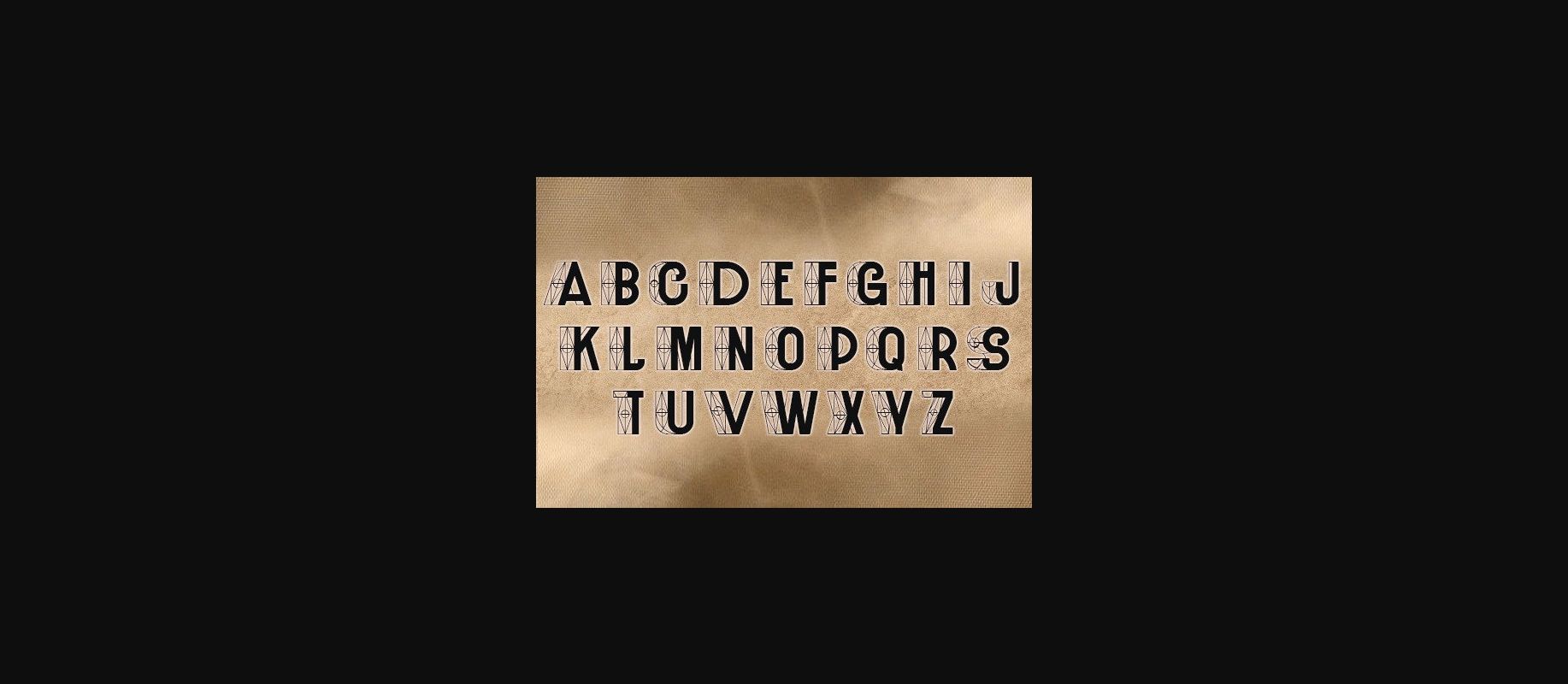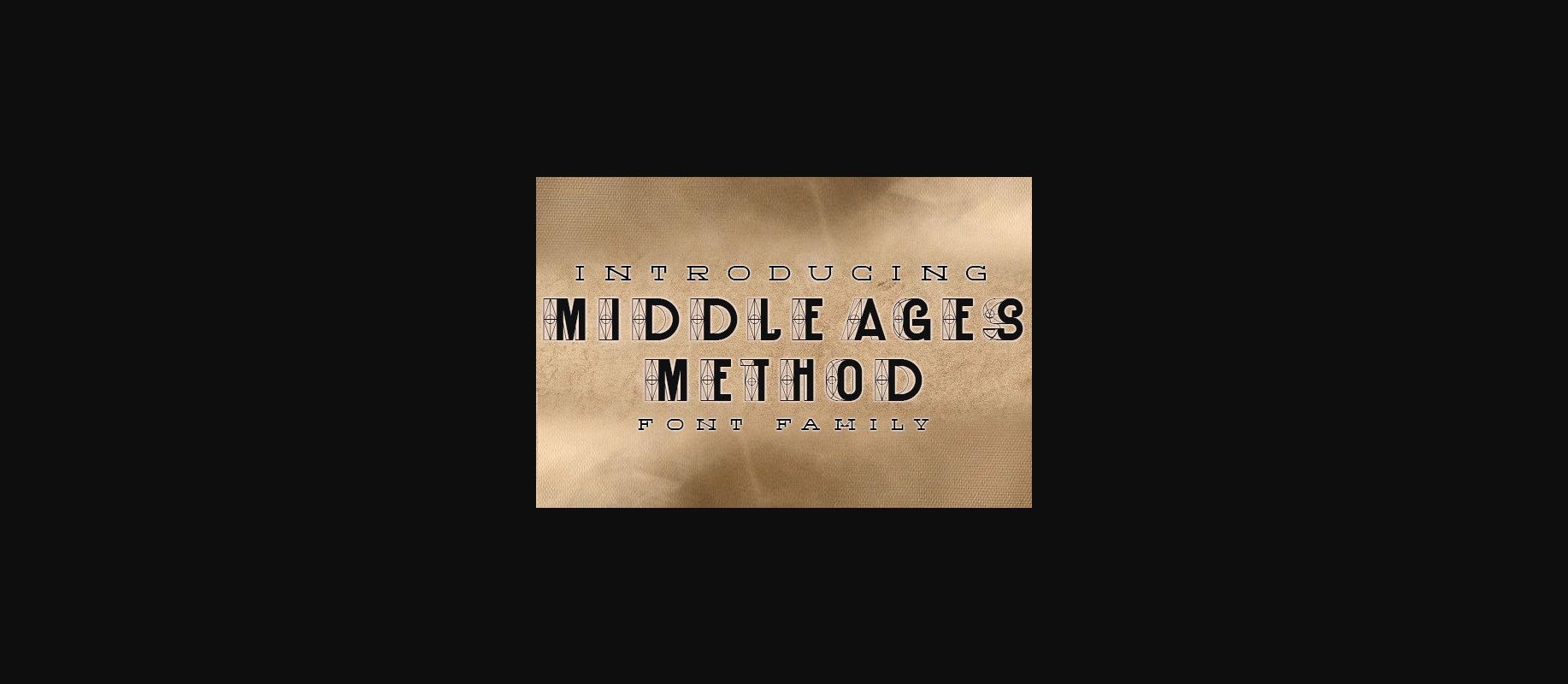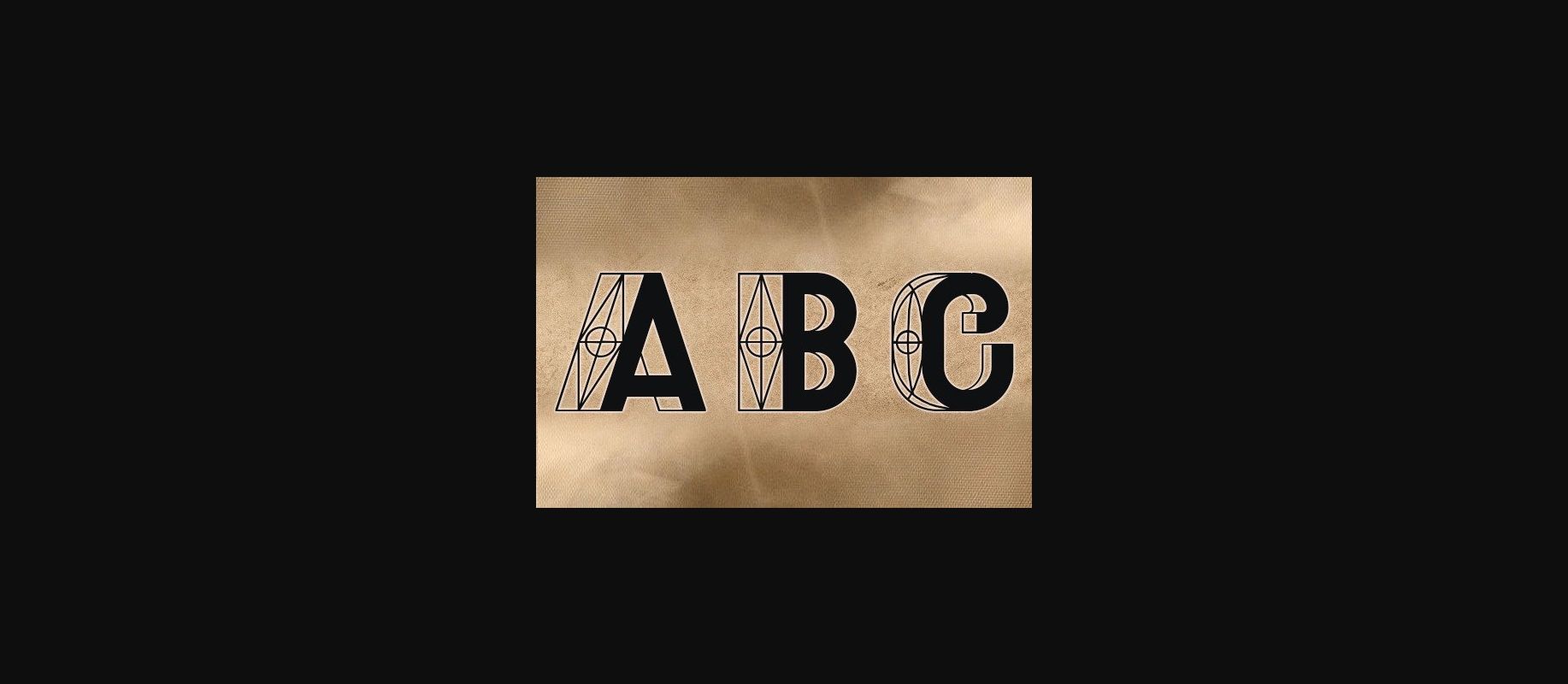
HomeDecorative FontsMiddle Ages Method Font Decorative Fonts Middle Ages Method Font FacebookXPinterestWhatsApp 1 of 5 ... Middle Ages Method Font Poster 2... Middle Ages Method Font Poster 3... Middle Ages Method Font Poster 4... Middle Ages Method Font Poster 5... About Middle Ages Method Font Middle Ages Method is a superb decorative font. Add it confidently to all your projects that need a unique, historical vibe. DOWNLOAD NOW People also explored Angret Font Skyline Sketch Font Luna Cute Font Funky Easter Font Simple Minimalist Font White Youth Unisex T-Shirt Mockup Recho Font Lovadea Font Cream Shoes Font 466 0 TagsMiddle Ages Method Font Previous articlePirate FontNext articleFootball College Font LEAVE A REPLY Cancel reply Comment: Please enter your comment! Name:* Please enter your name here Email:* You have entered an incorrect email address! Please enter your email address here Website: Save my name, email, and website in this browser for the next time I comment. Personal Use Free Foo Personal Use Free Read more about this font Setta Personal Use Free Read more about this font Austins Personal Use Free Read more about this font Leadent Script Personal Use Free Read more about this font BLOG Elegant Wedding Invitation Fonts – Handwritten & Script Fonts Elegant Wedding Invitation Fonts Your wedding day is one of the most important moments of your life, and every detail matters—including your invitation design. Our... Free Fonts Risk: Why Free Fonts Can Be Dangerous for Designers 5 Fonts That Will Dominate Design Trends in 2026 Best Fonts for YouTube Videos: Make Your Thumbnails Stand Out